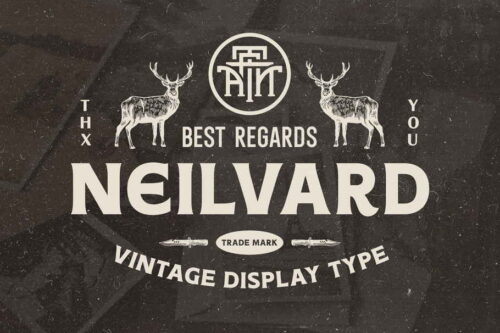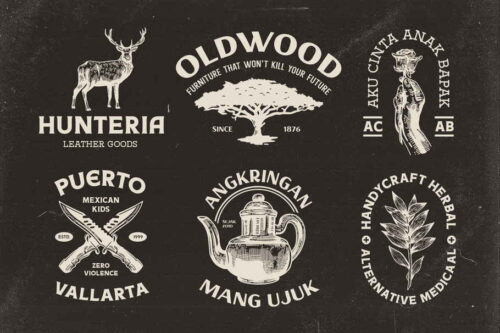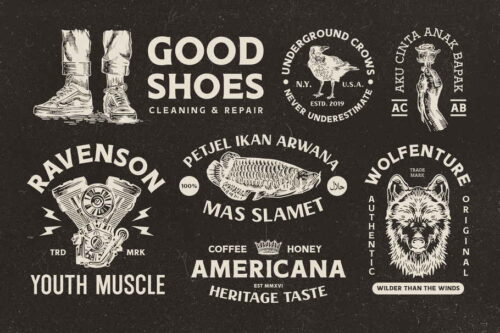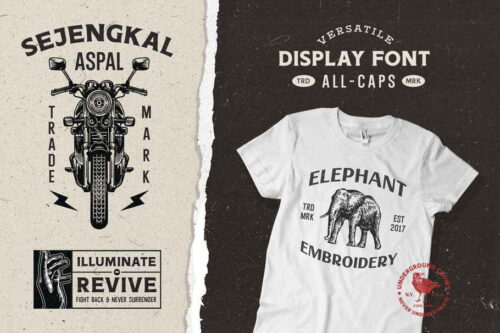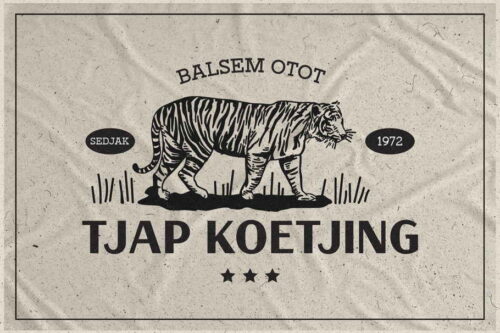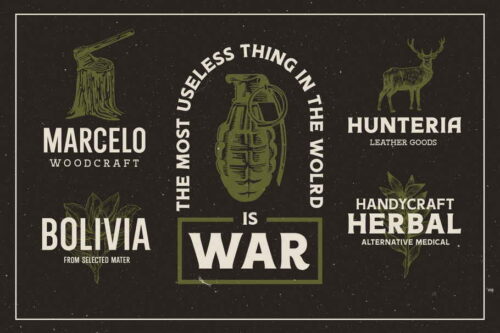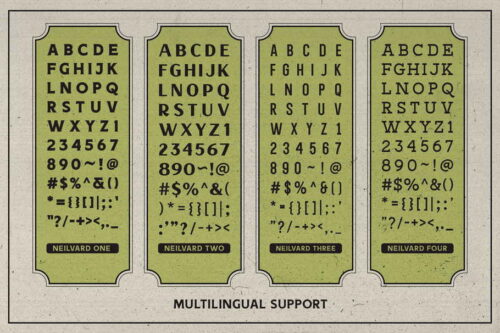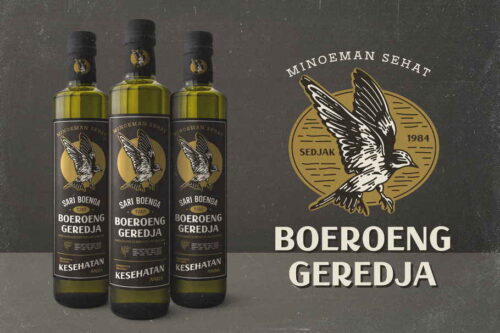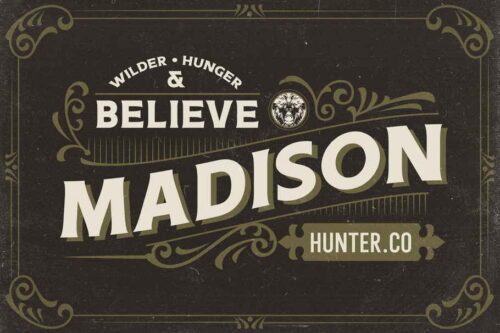
Introducing Neilvard – Font set. Inspired by vintage label and old school illustration. Carefully created with high consideration of the versatility and classic feel. There is Serif, Condensed Sans, Sans Serif, and Slab serif, also completed with rough illustrations vector to boost your design projects. This font set gives a great combination with 2 major font and 2 secondary fonts as the subheadline text.
Neilvard font set is perfect for labels, posters, typographic design, packaging, sign painting, vintage logo, packaging, and apparel design. These fonts are basically created to be combined with other graphic elements such as illustrations, badges, or icons.